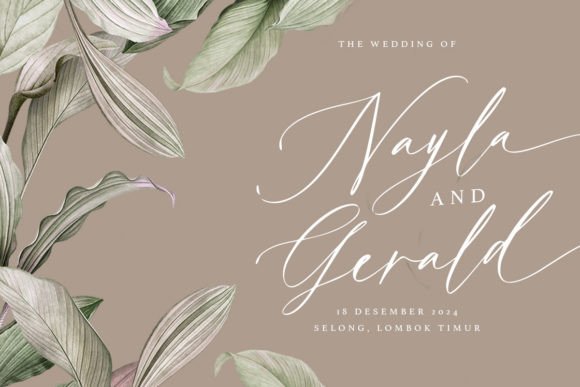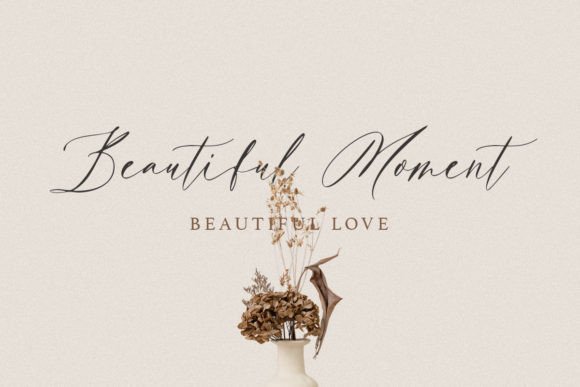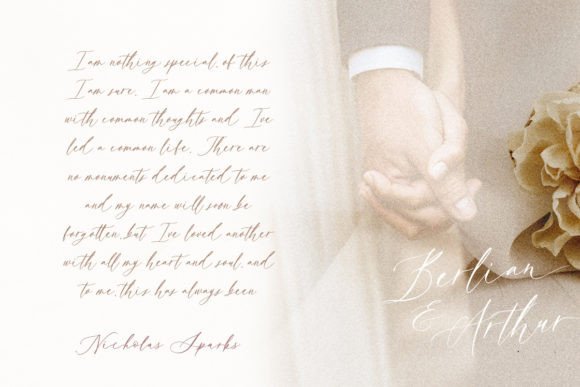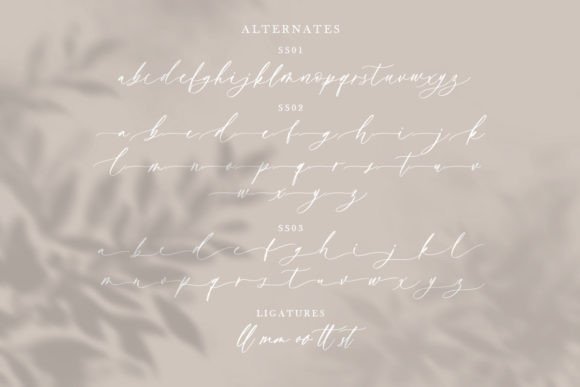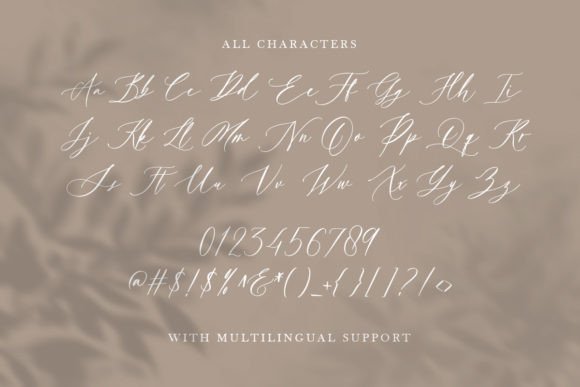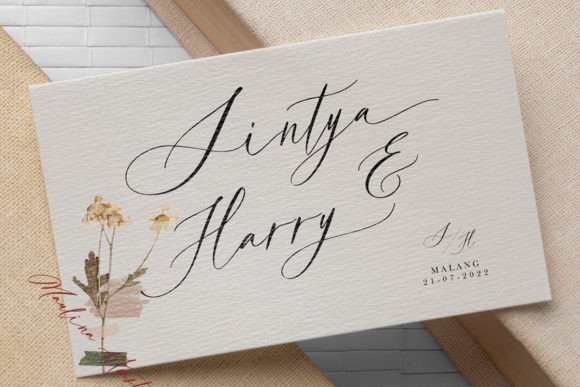
Bitter Love Font: Elevate Your Designs with Elegant Calligraphy
Are you looking for a font that can add a touch of sophistication and elegance to your designs? Look no further than Bitter Love Font, a modern elegant calligraphy font that is perfect for a wide range of design projects. In this article, we’ll take a closer look at the features and benefits of Bitter Love Font, and explore how it can help you take your designs to the next level.
A Fluid and Flowing Style
Bitter Love Font is a beautifully crafted calligraphy font that features a fluid and flowing style with a mix of thin and thick strokes. This font is based on brush lettering, giving it a natural, expressive feel that is perfect for creating elegant and sophisticated designs. Whether you’re working on a wedding invitation, a logo, or a branding project, Bitter Love Font is sure to impress.
Perfect for Wedding Invitations
One of the standout features of Bitter Love Font is its suitability for wedding invitations. The font’s elegant and sophisticated style makes it perfect for creating beautiful and memorable wedding stationery. With Bitter Love Font, you can create stunning wedding invitations that will set the tone for the big day. The font’s fluid and flowing style also makes it ideal for other formal events, such as baby showers, anniversaries, and formal galas.
Advanced Features
Bitter Love Font is more than just a beautiful calligraphy font – it also comes with a range of advanced features that make it easy to use and customize. The font includes ligatures, alternates, terminals, and end swashes, giving you a high level of flexibility and creative control. With these features, you can create unique and personalized designs that reflect your brand’s style and personality.
Create a Handwritten Look without the Hassle
One of the benefits of Bitter Love Font is that it allows you to create a handwritten look without the time and effort of actual calligraphy. This font is perfect for designers and crafters who want to add a personal touch to their designs without having to spend hours practicing calligraphy. With Bitter Love Font, you can achieve a beautiful, handwritten look in just a few clicks.
Bitter Love Font is a versatile font that is perfect for a wide range of design projects. Here are just a few benefits of using this font:
- Elegance and sophistication: Bitter Love Font adds a touch of elegance and sophistication to any design, making it perfect for formal events and luxury brands.
- Flexibility: The font’s advanced features, such as ligatures and alternates, give you a high level of creative control and flexibility.
- Time-saving: With Bitter Love Font, you can create a handwritten look without the time and effort of actual calligraphy.
| Font Name | Bitter Love Font |
| Author | baletype |
In conclusion, Bitter Love Font is a beautiful and versatile calligraphy font that is perfect for a wide range of design projects. With its fluid and flowing style, advanced features, and ease of use, this font is sure to become a favorite among designers and crafters. Whether you’re working on a wedding invitation, a logo, or a branding project, Bitter Love Font is the perfect choice for adding a touch of elegance and sophistication to your designs.